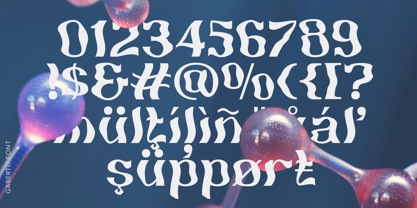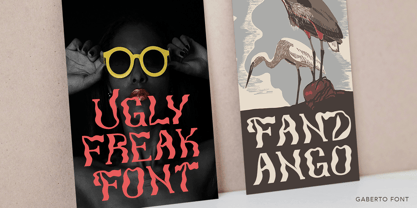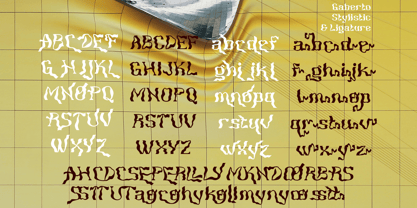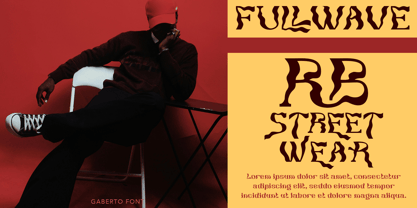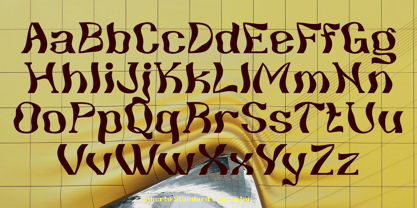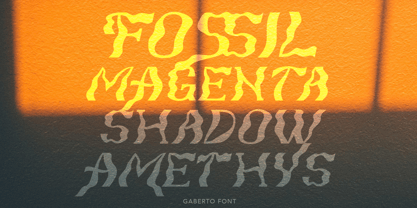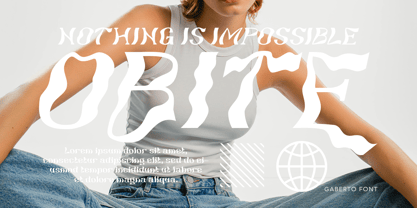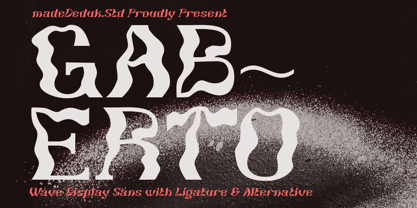
Gaberto
by madeDeduk
The Gaberto Font Family was designed by madededuk and published by madeDeduk. Gaberto contains 2 styles and family package options.
Gaberto is a display sans serif, wave, simplistic, high-contrast sans serif that is at home in high-end fashion and cultural environments you can explore and combine. This font is perfectly made to be a logo, and the other various formal forms such as invitations, labels, logos, magazines, books cover, greeting cards, packaging, fashion, make up, novels, labels whether you’re creating digital content or printed materials.